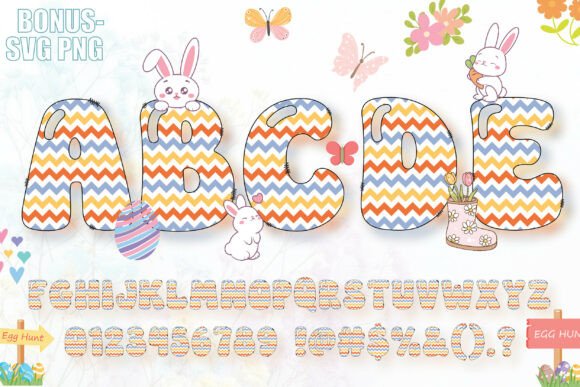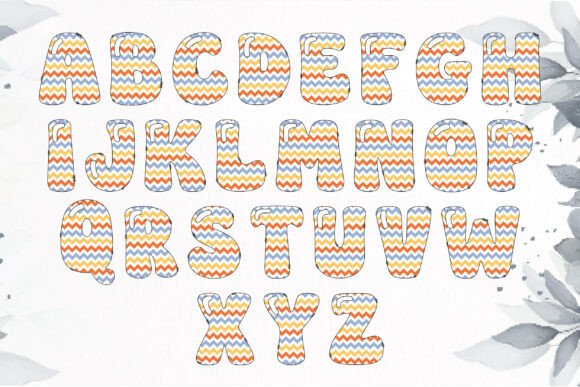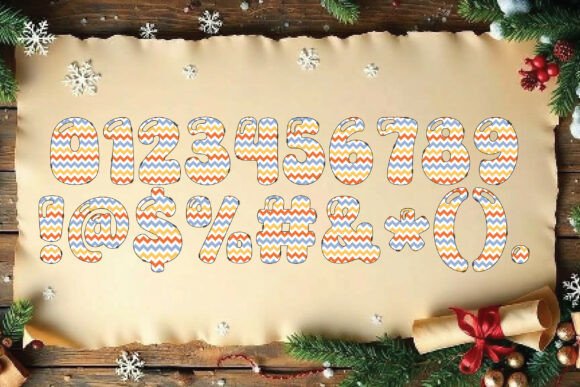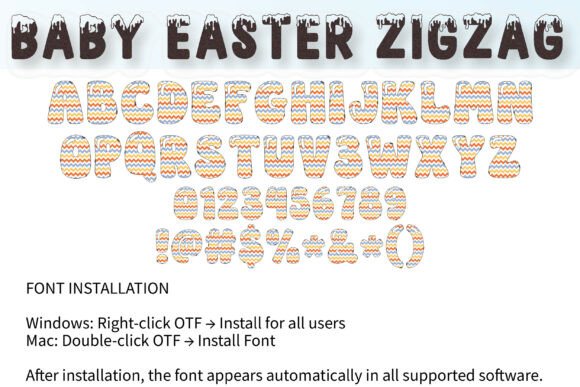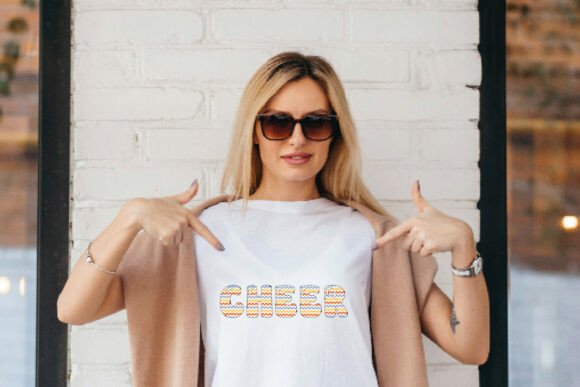
Baby Easter Zigzag Font: A Playful and Cheerful Alphabet for Your Easter Designs
Are you looking for a fun and adorable font to make your Easter designs stand out? Look no further than the Baby Easter Zigzag Font! This delightful alphabet is designed with playful zigzag details and soft spring vibes, making it perfect for creating cute and cheerful holiday designs. In this article, we’ll explore the features and benefits of the Baby Easter Zigzag Font, and provide you with inspiration and ideas for using it in your designs.
What is the Baby Easter Zigzag Font?
The Baby Easter Zigzag Font is a unique and charming alphabet designed specifically for Easter and spring-themed designs. The font features playful zigzag details that add a touch of whimsy and fun to any design. The soft spring vibes and pastel colors evoke a sense of joy and celebration, making it perfect for Easter designs. The font is ideal for creating a variety of designs, including kids’ shirts, baby onesies, Easter baskets, party invitations, stickers, planners, classroom crafts, sublimation projects, and social media graphics.
Key Features of the Baby Easter Zigzag Font
• Playful zigzag details: The font features playful zigzag details that add a touch of fun and whimsy to any design.
• Soft spring vibes: The font is designed with soft spring vibes, making it perfect for Easter and spring-themed designs.
• Pastel colors: The font features a range of pastel colors that evoke a sense of joy and celebration.
• Versatile: The font is versatile and can be used for a variety of designs, including kids’ shirts, baby onesies, Easter baskets, party invitations, stickers, planners, classroom crafts, sublimation projects, and social media graphics.
Ideas for Using the Baby Easter Zigzag Font
The Baby Easter Zigzag Font is perfect for a variety of Easter and spring-themed designs. Here are some ideas to get you started:
• Kids’ shirts and baby onesies: Create adorable Easter designs for kids’ shirts and baby onesies using the Baby Easter Zigzag Font.
• Easter baskets and party invitations: Design cute and cheerful Easter baskets and party invitations using the font.
• Stickers and planners: Create fun and colorful stickers and planners using the Baby Easter Zigzag Font.
• Classroom crafts: Use the font to create fun and educational classroom crafts for Easter and spring.
• Sublimation projects: Use the font to create sublimation projects, such as mugs, tumblers, and phone cases.
• Social media graphics: Create engaging and shareable social media graphics using the Baby Easter Zigzag Font.
Benefits of Using the Baby Easter Zigzag Font
Using the Baby Easter Zigzag Font in your designs offers a range of benefits, including:
• Unique and eye-catching designs: The font allows you to create unique and eye-catching designs that will stand out from the crowd.
• Versatility: The font can be used for a variety of designs, making it a great addition to your design toolkit.
• Fun and playful: The font adds a touch of fun and playfulness to any design, making it perfect for Easter and spring-themed designs.
The Baby Easter Zigzag Font is a playful and cheerful alphabet that’s perfect for creating cute and cheerful Easter designs. With its playful zigzag details, soft spring vibes, and pastel colors, this font is ideal for a variety of designs, including kids’ shirts, baby onesies, Easter baskets, party invitations, stickers, planners, classroom crafts, sublimation projects, and social media graphics. Whether you’re a designer or crafter, the Baby Easter Zigzag Font is a great addition to your design toolkit. So why not give it a try and see what amazing designs you can create?